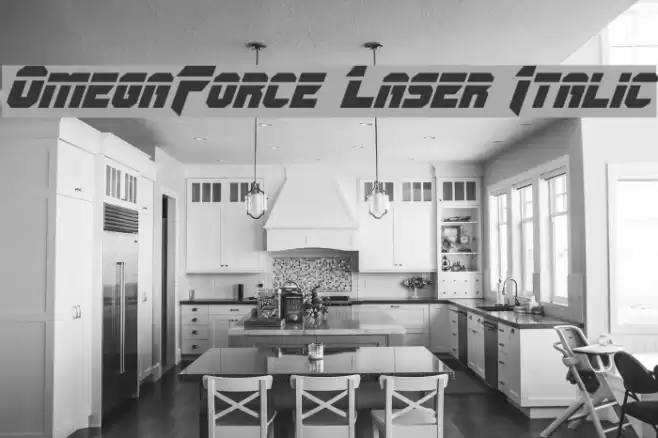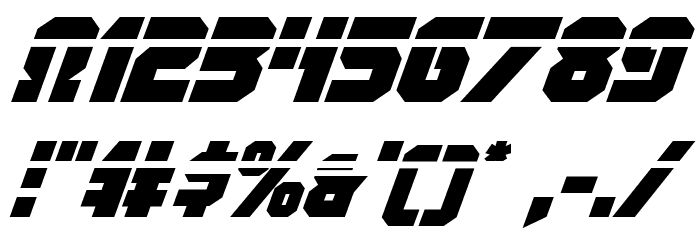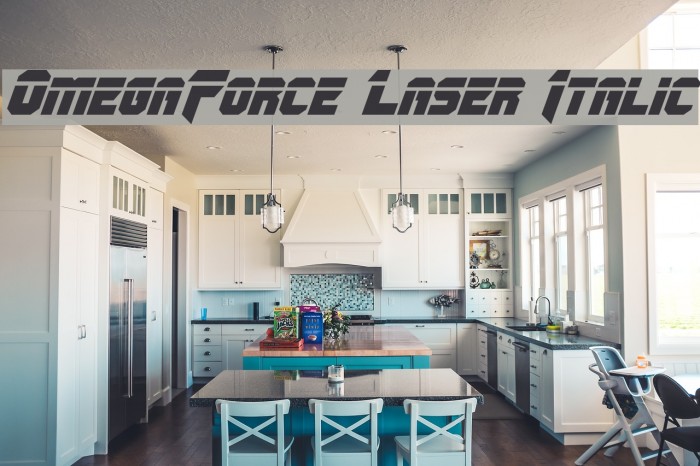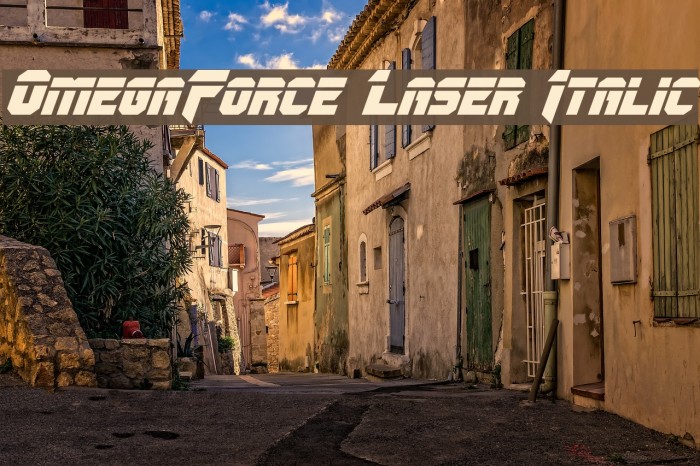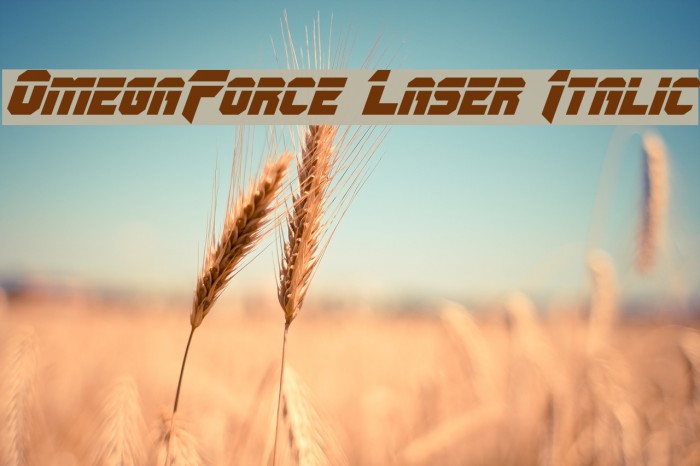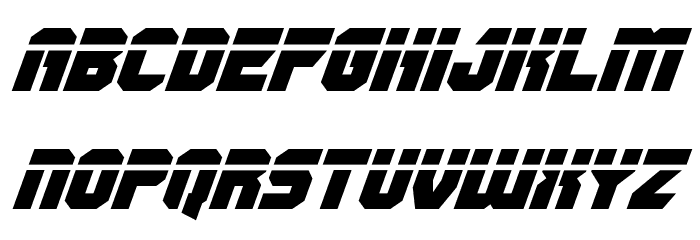
OmegaForce Laser Italic Font
OmegaForce Laser Italic Description
This font features a bold, futuristic design with sharp, angular lines and a distinct italic slant. The characters are heavily stylized, giving them a dynamic and aggressive appearance. The uppercase and lowercase letters maintain a consistent geometric structure, while the numbers and special characters follow the same bold and angular theme. The overall design is reminiscent of sci-fi and tech-inspired aesthetics, making it suitable for projects that require a modern and edgy look.
A bold, angular, and italic font with a futuristic, sci-fi aesthetic from Uncategorized fonts.
- Proposed Projects: Ideal for video game titles, movie posters, tech branding, and futuristic-themed designs.
- Overall Style: Futuristic